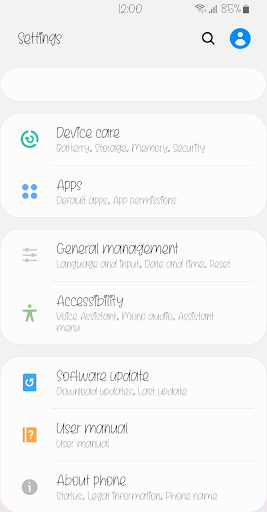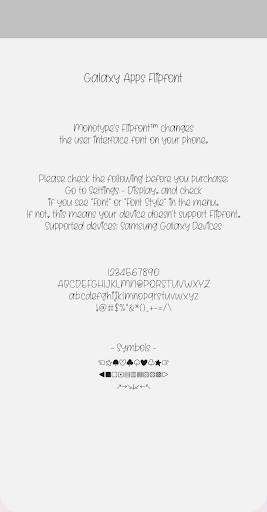
Nm SELFLOVE
Nm SELFLOVE is a lovely and cute font and has good readability. Customize your phone with SELFLOVE. Please try this font and leave your feedback.